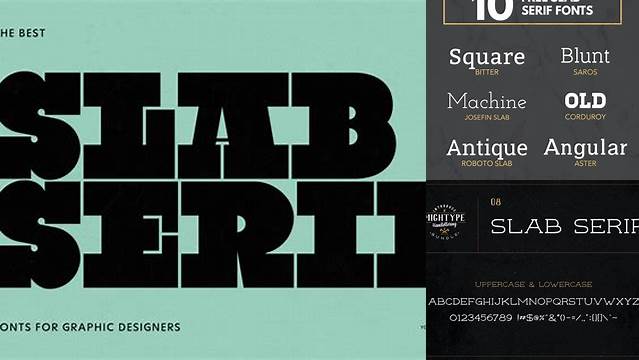
Slab Serif Fonts: Your Guide To Bold Typography
Hey there, design enthusiasts and font fanatics! Ever found yourself staring at a beautifully bold headline and wondered, "What kind of font is that?" Chances are, you might have been looking at a slab serif font. These bad boys are known for their strong presence, distinct personalities, and an ability to make a statement without even trying too hard. If you're ready to dive deep into the world of these incredibly versatile typefaces, you've come to the right place. We're going to explore everything from their fascinating history to their modern-day applications, making sure you're fully equipped to understand, appreciate, and utilize slab serifs in your own awesome projects. So, grab a coffee, get comfy, and let's unravel the enduring appeal of slab serif fonts together!
What are Slab Serif Fonts?
So, guys, what exactly are slab serif fonts? At their core, these are a specific category of serif typefaces characterized by thick, block-like serifs. Unlike the more delicate, tapered serifs you'd find on a traditional old-style serif font, slab serifs boast sturdy, often unbracketed, horizontal lines that extend from the main strokes of the letters. Imagine a font that looks like it's wearing tiny, rectangular shoes – that's pretty much what you're looking at with a slab serif. These slab serif fonts stand out because their serifs are typically as thick as, or even thicker than, the main vertical strokes of the characters, creating a remarkably uniform and strong appearance. This uniformity in stroke weight, combined with those distinctive serifs, gives them a unique visual presence that's both robust and highly legible, especially at larger sizes. Seriously, these fonts are designed to grab attention and hold it. They often have a somewhat geometric construction, contributing to their modern and industrial feel, even though their origins trace back much further than you might expect. When you see a font that just screams 'bold' and 'unapologetic,' chances are, you're looking at a fantastic example of a slab serif. They bridge the gap between classic elegance and contemporary bluntness, making them incredibly adaptable for various design needs. Whether it's for a strong headline, a powerful logo, or even just adding a touch of personality to a body of text, these slab serif fonts deliver a visual punch that's hard to ignore. They really are a special breed in the vast landscape of typography, offering a solidity and presence that few other font categories can match. We're talking about typefaces that command respect and convey authority, while still often maintaining a friendly and approachable vibe, depending on their specific design nuances. Understanding these fundamental characteristics is the first step to truly appreciating their power and versatility in any design toolkit. They aren't just fonts; they're statements.
The History of Slab Serif Fonts
Alright, let's take a trip down memory lane, because the history of slab serif fonts is absolutely fascinating and really helps us understand their evolution, guys. Slab serif fonts first burst onto the scene in the early 19th century, specifically around 1815, during a period of intense industrialization and rapid change in advertising and printing. They were initially known by a few different names, such as "Egyptian" or "Antique," which was a common marketing tactic at the time to make new things sound exotic and appealing, even if they had no real connection to ancient Egypt. These early slab serif fonts were a radical departure from the delicate, high-contrast serifs that dominated the Enlightenment era. Printers and advertisers needed something bolder, something that could cut through the visual clutter of increasingly busy cityscapes and shout louder from posters, playbills, and product packaging. Traditional serif fonts just weren't making enough of an impact. So, the thick, block-like serifs emerged as a perfect solution, offering unprecedented visual weight and prominence. One of the most iconic early examples was Vincent Figgins' "Antique" font from 1815, which really set the stage for what was to come. Later, in the mid-19th century, the Clarendon style slab serif fonts emerged, notably designed by Robert Besley in 1845. Clarendon was a bit more refined than the earlier 'Egyptians,' often featuring bracketed serifs and a slightly less geometric, more traditional letterform structure. This made them incredibly popular for books and longer texts, not just headlines, proving their versatility. As the 20th century rolled around, slab serif fonts continued to evolve, giving us geometric powerhouses like Rockwell and Memphis, which embodied the industrial and art deco aesthetics of their time. Fast forward to today, and these fonts are still incredibly relevant, proving their timeless appeal and adaptability across various design trends and technologies. Their journey from bold advertising tools to sophisticated branding elements is a testament to their enduring power. Seriously, knowing where these fonts came from makes you appreciate their modern applications even more, linking us directly to the pioneers of print who wanted to make a statement, just like we do today. It's a rich history filled with innovation and a constant drive to capture attention.
Characteristics of Slab Serif Fonts
Now, let's get into the nitty-gritty of what makes these typefaces tick, because understanding the characteristics of slab serif fonts is key to using them effectively, fellas. Slab serif fonts are pretty distinct, and once you know what to look for, you'll spot them everywhere. Their defining feature, obviously, is those thick, block-like serifs. These aren't just any serifs; they are typically unbracketed, meaning they connect to the main stroke at a sharp angle without a curved transition, though some sub-categories like Clarendon do feature bracketing. This lack of bracketing contributes heavily to their geometric, sturdy appearance. Another major characteristic is the often minimal contrast between thick and thin strokes within the letterforms. While some modern iterations might play with this, many classic slab serif fonts exhibit a rather uniform stroke weight, which makes them feel robust and solid. This consistency in stroke weight enhances their legibility, especially in demanding environments like signage or highly condensed text. Think about how clear they look on a billboard! Many slab serif fonts also lean towards a monospaced or quasi-monospaced design, especially those developed for typewriters, like Courier. This gives them a very mechanical, functional feel that some designers love for its retro appeal. The overall impression of slab serif fonts is one of strength, stability, and reliability. They convey a sense of gravitas and honesty, making them excellent choices for brands that want to project trustworthiness and dependability. Despite their strength, they can also possess a friendly and approachable quality, depending on the roundness of their curves or the slight variations in their letterforms. For instance, some might have very sharp, angular turns, while others might feature softer, more humanist curves, offering a wide spectrum of moods. From the industrial look of a geometric slab to the more traditional feel of a Clarendon, their characteristics define their personality. Seriously, paying attention to these details will allow you to pick the perfect slab serif font for any project, ensuring your message is not just seen, but felt. These fonts aren't just about aesthetics; they're about communicating a specific tone and impact, and their defining characteristics are the tools they use to achieve that.
Popular Slab Serif Fonts
Okay, guys, let's talk about some of the rockstars in the world of typography: popular slab serif fonts. If you're looking to dive into using these amazing typefaces, knowing some of the big names will give you a great head start. One of the absolute classics, and a personal favorite for many, is Rockwell. This slab serif font is famous for its geometric construction and perfectly square serifs. It’s incredibly bold, super legible, and has a strong, no-nonsense presence. You’ll see Rockwell used everywhere from headlines to branding, and it just never seems to go out of style because of its timeless, robust appeal. Then there's Courier, which is perhaps the most famous monospaced slab serif font. Originally designed for typewriters, Courier has a distinct retro feel and is often associated with coding, screenplays, and a raw, unfiltered aesthetic. It's got a unique charm that's hard to replicate, making it a go-to for projects needing that vintage, mechanical vibe. Another powerhouse is Clarendon, which we briefly touched on earlier. This slab serif font is a bit more traditional than Rockwell, often featuring bracketed serifs and a more humanist touch. It's incredibly versatile and exudes a sense of reliability and professionalism, making it a staple for editorial design and branding that aims for a classic yet authoritative look. Don't forget Museo Slab, a more contemporary option that's incredibly popular, especially because a few weights are often available for free! This slab serif font combines strength with a friendly, rounded feel, making it approachable and modern. It’s perfect for web design, apps, and branding that wants to be both solid and inviting. For a more modern and highly legible choice, Merriweather Sans (yes, it also has a slab serif companion, Merriweather!) and Lexend Deca offer fantastic options, particularly for digital interfaces where clarity and readability are paramount. These slab serif fonts are optimized for screen use and provide excellent performance. Lastly, Tisa Sans and its slab counterpart, Tisa Slab, are also fantastic, offering a warm and welcoming feel while maintaining the structural integrity typical of slab serifs. These examples just scratch the surface, but they give you a solid foundation of diverse personalities within the slab serif font family. Each one offers a unique flavor, allowing designers to precisely match the font's character to their project's message. Seriously, exploring these popular choices is a great way to understand the breadth and depth of what slab serifs can offer your designs.
Best Uses for Slab Serif Fonts
Alright, design pros, let's zero in on where these fantastic slab serif fonts really shine, because knowing their strengths helps you put them in the perfect spot every time, right? The best uses for slab serif fonts are incredibly diverse, thanks to their unique blend of boldness and clarity. First and foremost, these typefaces are absolute champions for headlines and titles. Their strong, unwavering presence ensures that your main message grabs attention instantly. Whether it's a magazine cover, a website header, or a poster, a slab serif font can make that critical first impression count. They simply command the page and have an undeniable visual weight that stands out against other elements. Think about how a bold Rockwell or Museo Slab can instantly elevate a plain title into something impactful and memorable. Beyond headlines, slab serif fonts are phenomenal for branding and logo design. Many companies opt for slab serifs because they convey trustworthiness, stability, and a modern, no-nonsense attitude. Brands that want to project a sense of heritage, durability, or industrial strength often find their perfect match in a slab serif. They’re excellent for creating a strong brand identity that feels both established and contemporary, making your logo instantly recognizable and authoritative. Another great application is in advertising and marketing materials. Because of their high legibility and strong visual impact, slab serif fonts are fantastic for calls to action, promotional banners, and product packaging. They ensure that key information is seen and understood quickly, cutting through the noise in a busy marketplace. Imagine a powerful slogan rendered in a bold slab serif – it just hits different, doesn’t it? While often thought of for display purposes, some slab serif fonts are also surprisingly effective for short blocks of body text, particularly those with a slightly more open and less condensed design, like Lexend or Merriweather Slab. They can offer a robust reading experience without feeling too heavy, especially in print. However, exercise caution with very long passages, as their weight can sometimes lead to fatigue. Seriously, experimenting with slab serif fonts in these key areas will unlock their full potential and bring a unique power and personality to your designs. They're not just decorative; they're functional powerhouses that communicate strength and clarity, making them indispensable in any designer's toolkit. Leveraging their strengths means your message won't just be seen; it'll be felt and remembered, which is the ultimate goal in design, guys.
Slab Serif Fonts in Branding
Listen up, brand builders! When it comes to creating a memorable and impactful identity, slab serif fonts in branding are an absolute game-changer. These aren't just pretty letters; they're powerful tools that can sculpt the perception of a company, giving it a distinctive voice and visual style. Many modern and established brands leverage slab serif fonts because of the unique set of values they embody: reliability, strength, authenticity, and a touch of vintage cool with a modern twist. Think about it – a brand that uses a slab serif often wants to convey that it’s trustworthy, solid, and here to stay. It’s like saying, “We’re established, we’re dependable, and we mean business,” without having to say a single word. These slab serif fonts work wonders for logos because their thick, unwavering strokes provide excellent visibility and impact, even at small sizes. A logo designed with a strong slab serif can be incredibly versatile, looking great on everything from business cards to billboards, digital avatars to product packaging. Their distinctive geometry and weight make them instantly recognizable and hard to forget. Consider how various food brands, automotive companies, or even tech startups have embraced slab serifs to project an image of robust engineering, honest craftsmanship, or playful innovation. For instance, a geometric slab like Rockwell might be perfect for a brand wanting to emphasize precision and durability, while a slightly rounded option like Museo Slab could lend a friendly yet strong personality to a creative agency or a café. They're also fantastic for brand collateral – think headlines on marketing materials, product labels, or website headers – where they can reinforce the core brand message with consistent visual power. The use of slab serif fonts helps create a cohesive visual language that strengthens brand recall and differentiates a company from its competitors. In a crowded marketplace, standing out is everything, and slab serifs offer that bold, confident presence needed to make a mark. So, when you're crafting a brand identity and want to infuse it with a sense of authority, trustworthiness, and a timeless appeal, don't overlook the incredible potential of slab serif fonts. They truly are an essential ingredient in building strong, lasting brands that resonate with their audience. Seriously, guys, their ability to convey both tradition and modernity simultaneously is what makes them so incredibly effective in today's diverse branding landscape.
Slab Serif Fonts in Web Design
Alright, web designers and developers, let's chat about a crucial area: slab serif fonts in web design. While traditionally rooted in print, slab serif fonts have made a powerful and increasingly popular transition into the digital realm, offering unique advantages for online experiences. Their inherent legibility and strong visual presence are big wins here, guys. For headlines and call-to-action buttons on websites, apps, or landing pages, a robust slab serif font can dramatically improve impact and clarity. Imagine a hero section with a bold statement rendered in Lexend Deca or Merriweather Slab – it immediately grabs the user's attention and conveys importance without being overly aggressive. These fonts are fantastic for guiding the user's eye and ensuring key messages don't get lost in the digital clutter. One of the main reasons slab serif fonts work so well on screens is their generally uniform stroke weight and distinct serifs, which help maintain character shape and legibility even at varying screen resolutions and sizes. Unlike delicate serifs that can sometimes blur or disappear on lower-res displays, the chunky nature of slab serifs helps them hold their form, making text clear and readable. This is particularly important for responsive design, where text needs to look good on everything from a tiny smartphone screen to a massive desktop monitor. Furthermore, slab serif fonts can add significant personality and brand identity to a website. They can inject a sense of trustworthiness, a touch of retro cool, or a modern, industrial aesthetic, depending on the specific font chosen. This allows websites to differentiate themselves and convey a specific brand tone directly through their typography. For example, a tech blog might use a clean, geometric slab serif to suggest innovation and precision, while a food blog might opt for a warmer, rounded slab to feel approachable and inviting. While they excel in display roles, some slab serif fonts are also designed with body text in mind for web use, often featuring a slightly wider letter spacing and optimized x-height to enhance readability over longer passages. Fonts like Roboto Slab or Noto Serif Display are fantastic examples that balance punchiness with extended readability. Seriously, incorporating slab serif fonts thoughtfully into your web designs can elevate the user experience, enhance brand perception, and ensure your content is both impactful and incredibly legible, making your digital presence truly stand out in a sea of sans-serifs. It's about making a statement online, and slab serifs are perfectly equipped for the job.
Slab Serif Fonts in Print Design
Let's switch gears and talk about their original stomping ground: slab serif fonts in print design. This is where these typefaces truly came into their own, and they remain absolute powerhouses for anything that’s going to be physically printed, guys. The robust and clear nature of slab serif fonts makes them exceptionally well-suited for a wide array of print materials, from books and magazines to posters, flyers, and packaging. Think about it: in print, clarity and impact are paramount. You often have less room for error compared to digital displays where users can zoom in or adjust settings. The strong, unwavering strokes and distinct serifs of slab serif fonts ensure that text remains highly legible, even when printed on different paper types or through various printing processes. This reliability is a huge advantage, especially for materials that need to convey crucial information or grab attention from a distance. For posters and billboards, slab serif fonts are practically tailor-made. Their inherent boldness means headlines and key messages pop off the page (or the giant sign!), cutting through visual clutter and demanding to be read. A well-chosen slab serif can make a statement that is both assertive and aesthetically pleasing, ensuring your message has maximum stopping power. In magazine and newspaper design, slab serif fonts are often utilized for headlines, subheadings, and pull quotes. They provide a strong visual hierarchy, guiding readers through the content and highlighting important sections. A sophisticated slab serif like Clarendon can lend an air of authority and tradition to an editorial layout, while a more modern choice might inject energy and freshness. For book covers and interiors, certain slab serif fonts can be incredibly effective. While classic serif fonts are typically used for body text, a robust slab serif on a book cover can convey genre, mood, and capture reader interest. Some slab serif fonts with open letterforms and balanced weights can even work well for chapter titles or short prose passages, offering a unique reading experience. Furthermore, for packaging design, slab serif fonts lend a sense of honesty, durability, and craftsmanship. They can effectively communicate product benefits and brand values on a physical product, making it stand out on a shelf. Seriously, the tangible nature of print brings out the best in slab serif fonts, allowing their solidity and character to truly shine. They ensure that your printed message is not just seen, but felt, leaving a lasting impression on your audience. Their journey began in print, and their supremacy there continues to this day, making them indispensable tools for designers tackling any physical medium.
Choosing the Right Slab Serif Font
Alright, this is where it gets fun, but also a little tricky: choosing the right slab serif font for your project. With so many fantastic options out there, how do you pick the one? It's not just about what looks good; it's about what communicates effectively, guys. First off, consider the mood and tone you want to convey. Slab serif fonts aren't a monolith; they range from super geometric and industrial (like Rockwell) to more humanist and friendly (like Museo Slab or Merriweather Slab). Do you need something serious and authoritative for a legal firm, or something approachable and quirky for a local café? Your choice of slab serif will heavily influence this perception. A geometric slab often projects precision and strength, while a rounded one can feel more inviting and less formal. Next, think about its intended use and context. Is it for a headline on a massive billboard, or body text in a small brochure? For headlines, you can often go bolder and more distinctive. For body text, you’ll want a slab serif that has excellent legibility, good letter spacing, and a comfortable x-height to ensure a smooth reading experience. Some slab serif fonts are designed specifically for display, while others are optimized for text. Don't try to force a display font into a body text role, and vice versa. Always test it out! Readability at different sizes is another critical factor. What looks amazing at 72pt might become a muddy mess at 10pt. Always check how your chosen slab serif font performs across the range of sizes you plan to use it. This is especially important for digital applications where text might be resized frequently. Also, consider the brand identity or overall design aesthetic. Does the slab serif font complement other visual elements? Does it fit with the existing color palette, imagery, and overall style guide? You want your font choice to feel cohesive and intentional, not like an afterthought. Finally, explore the availability of weights and styles. Does the font family offer enough variation (light, regular, bold, italic, condensed, extended) to support your design needs? Having a versatile family allows for greater flexibility and visual hierarchy within your project. Seriously, taking the time to carefully evaluate these points will save you headaches and ensure that your chosen slab serif font not only looks good but also serves its purpose perfectly, making your designs truly effective and impactful. It’s an investment in your project’s success, so choose wisely!
Modern Slab Serif Fonts
Let’s dive into the present, because modern slab serif fonts are constantly pushing boundaries and bringing fresh perspectives to this classic category, guys. While the historical roots of slab serifs are undeniably strong, contemporary designers are always innovating, creating slab serif fonts that feel incredibly relevant for today's digital-first world. What makes a slab serif